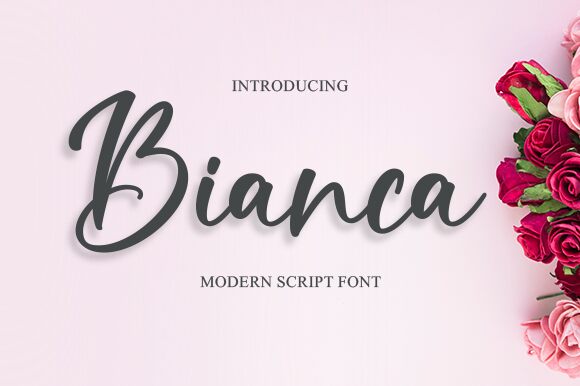
Bianca
Bianca is a beautifully crafted semi-light handwritten font designed by Graphix Line Studio. Its flowing, graceful strokes give any project a touch of elegance and sophistication, making it the perfect choice for wedding invitations, greeting cards, and other formal occasions. However, its playful charm also makes it suitable for more casual designs like social media graphics or children's book covers. Bianca's unique style and semi-light weight make it stand out from other handwritten fonts and ensure that your message will be delivered with both grace and personality. Let Bianca add a touch of whimsy to your next project.